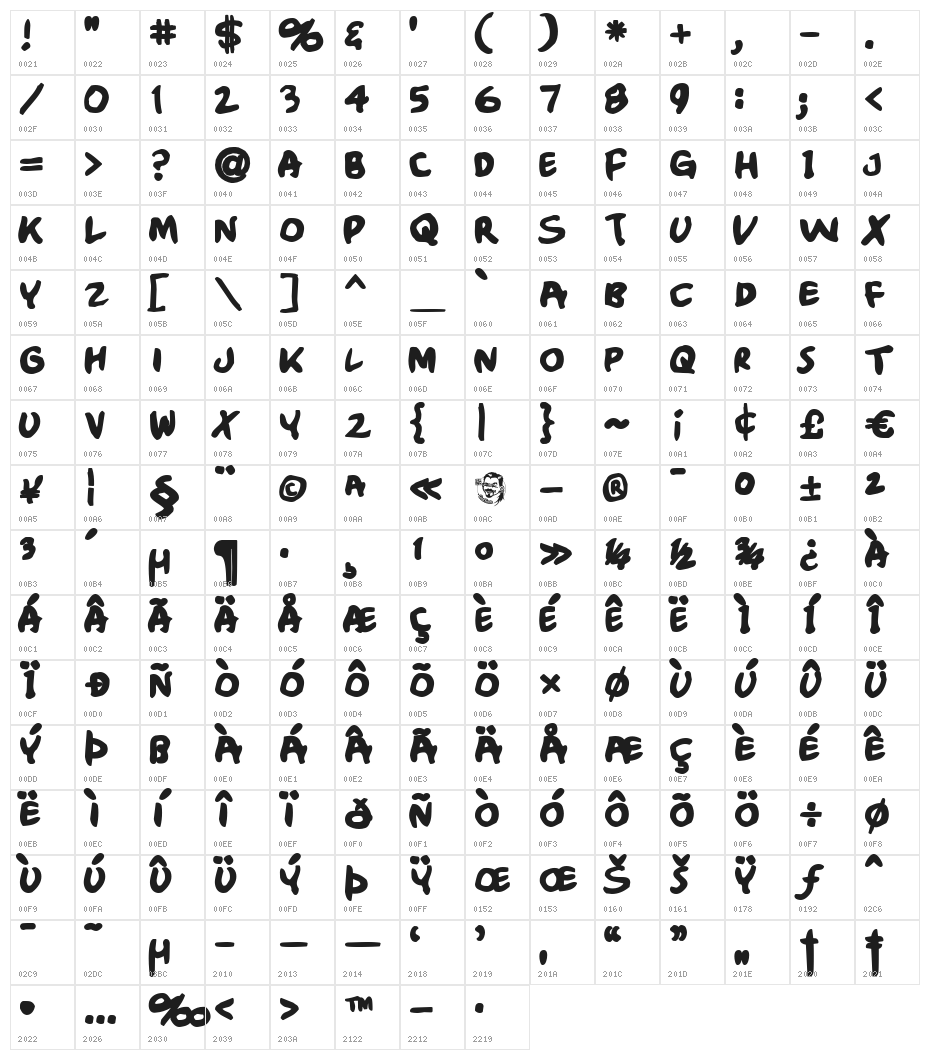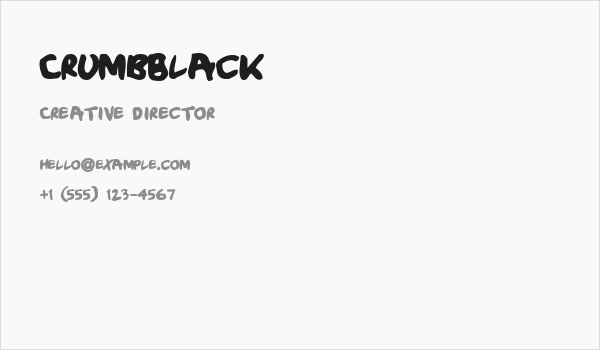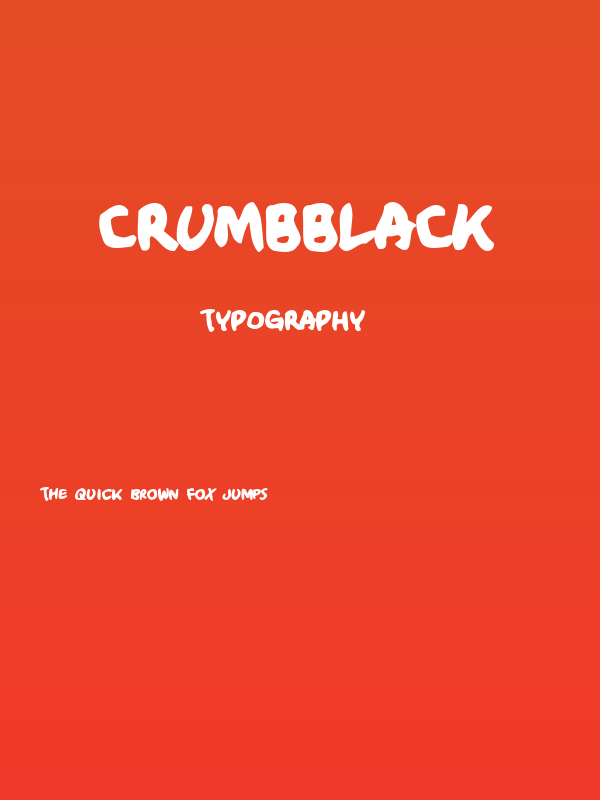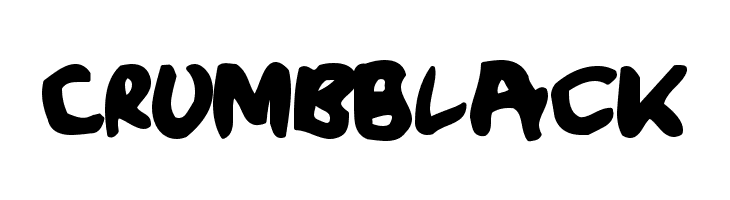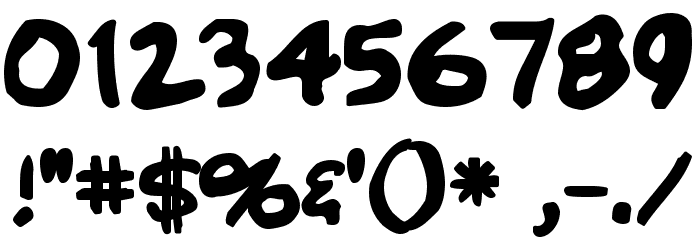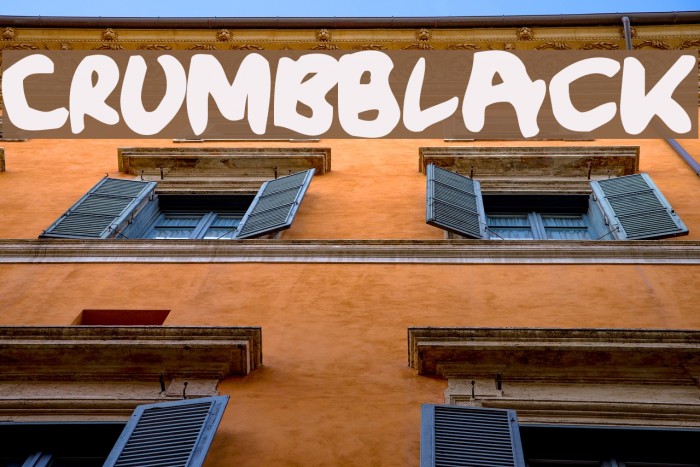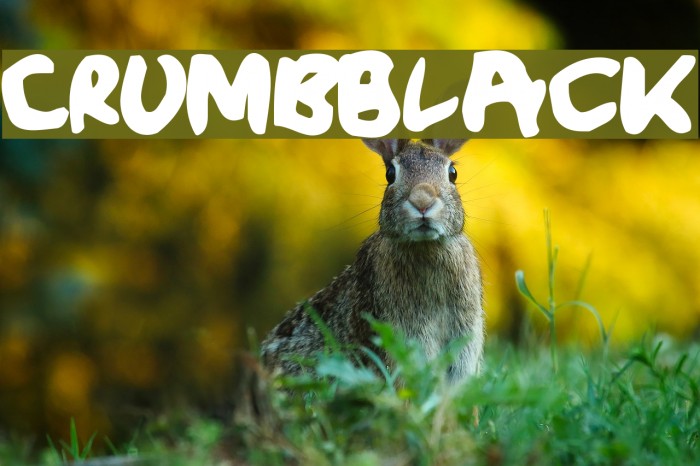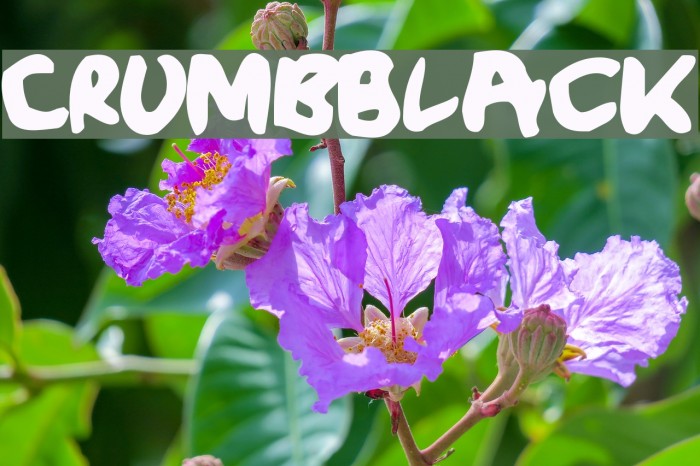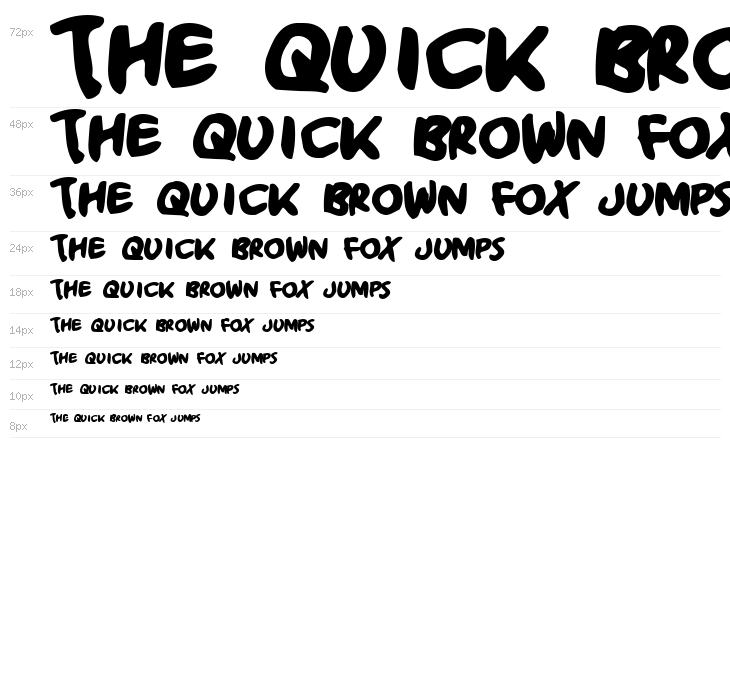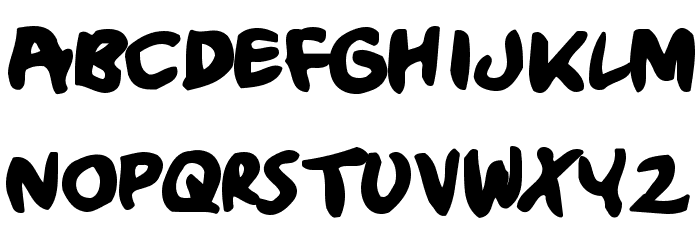
CrumbBlack Font
CrumbBlack Description
This font features a bold, expressive style with thick strokes and a playful, handwritten appearance. The characters are rounded and slightly irregular, giving it a casual and friendly feel. The uppercase and lowercase letters are consistent in their boldness, while the numbers and special characters maintain the same lively aesthetic. The overall design is reminiscent of hand-painted signage, making it suitable for projects that require a personal touch or a sense of fun and creativity.
| Proposed Projects | Ideal for posters, children's books, playful branding, and creative social media graphics. |